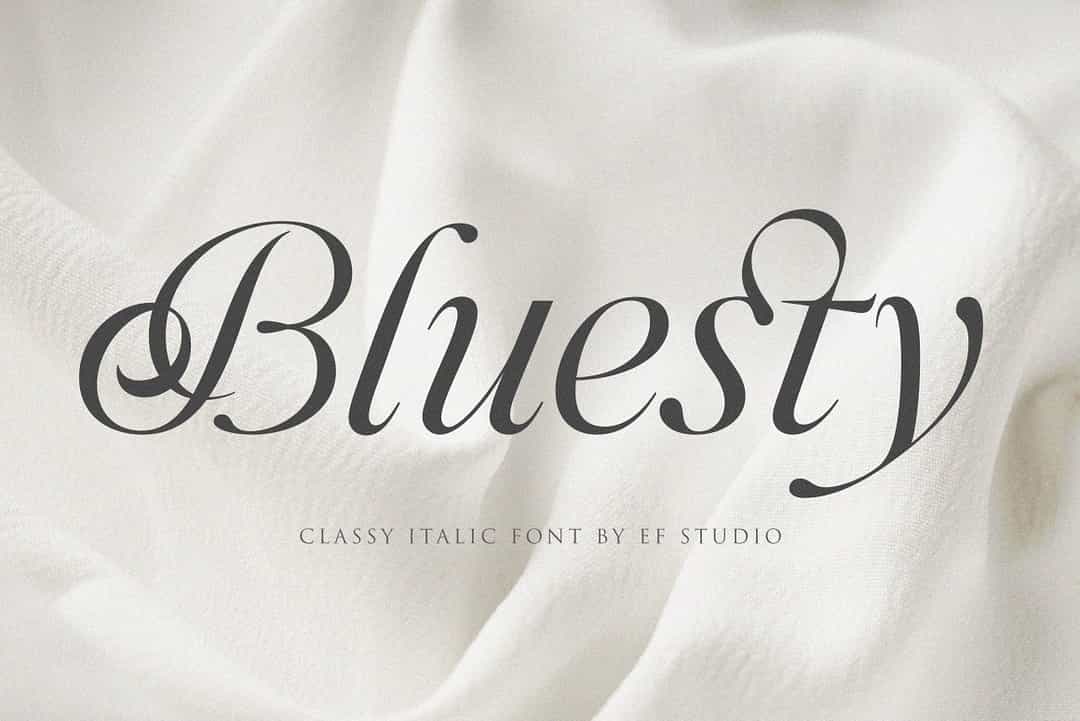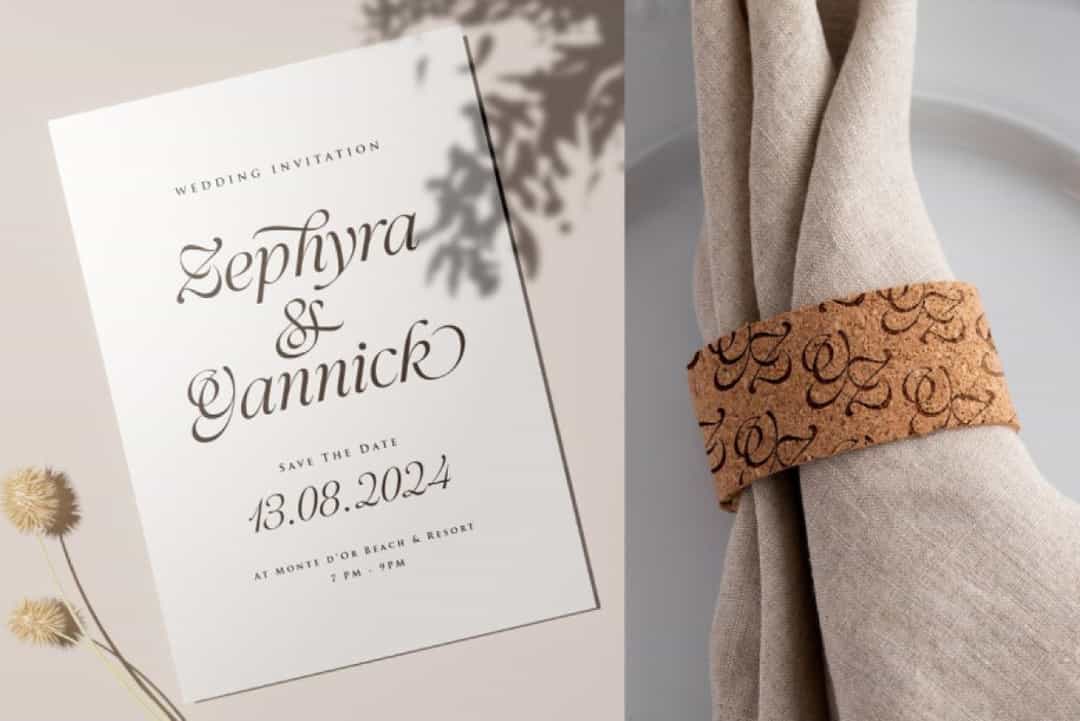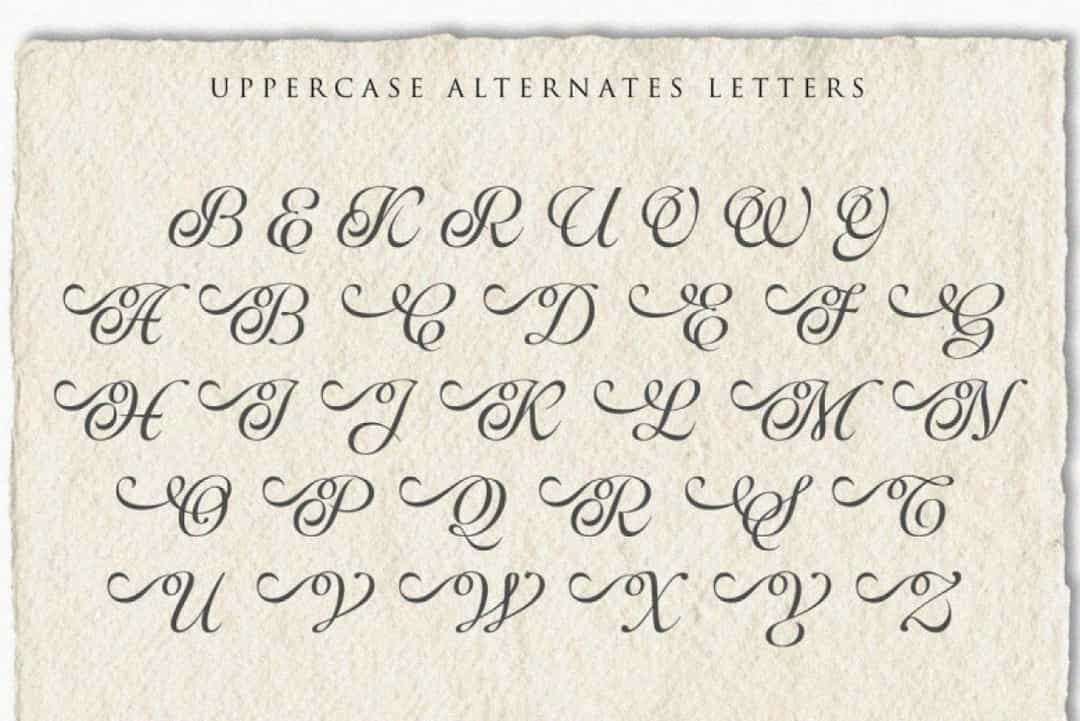
Bluesty is an elegant blend of angles and curves, creating the perfect harmony of angles and curves – an elegant script calligraphy font which effortlessly elevates text for a refined appearance. Perfect for invitations, logos or printed material designs alike – let this font add an elegant touch that makes every word appear like artwork!